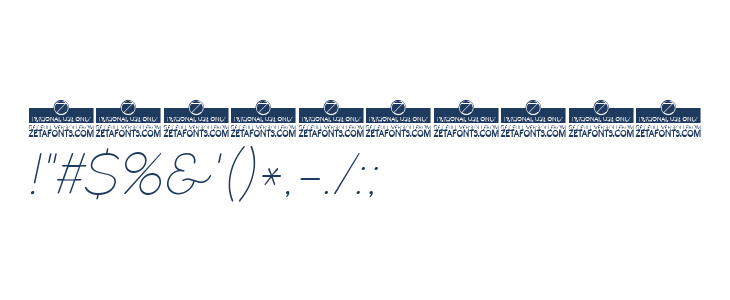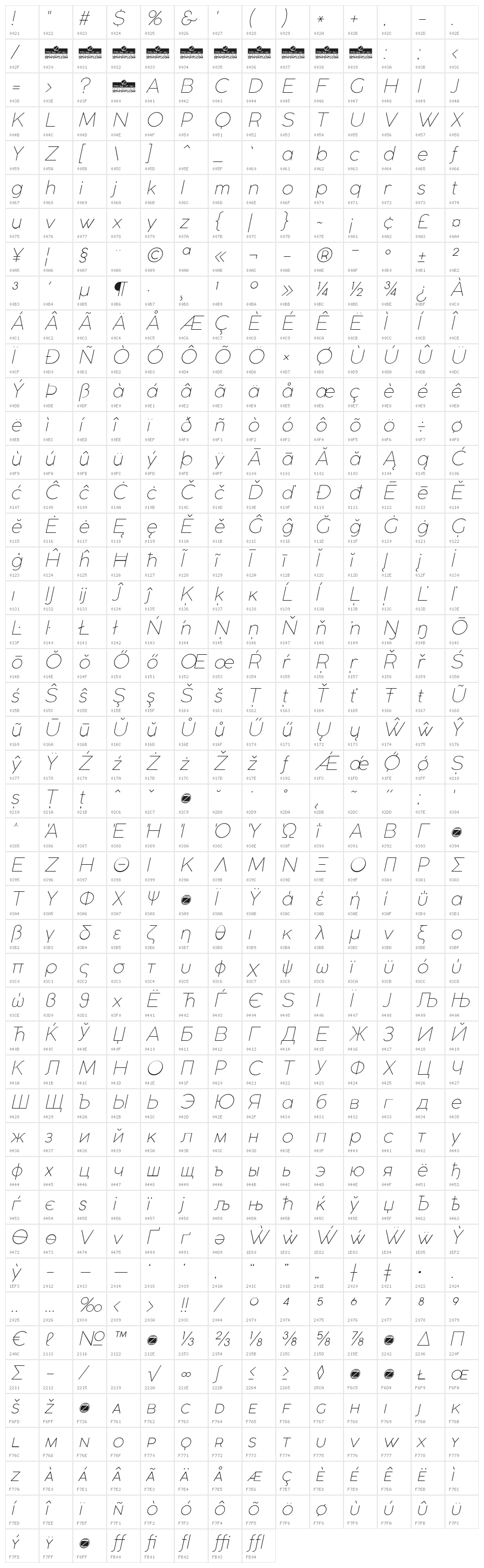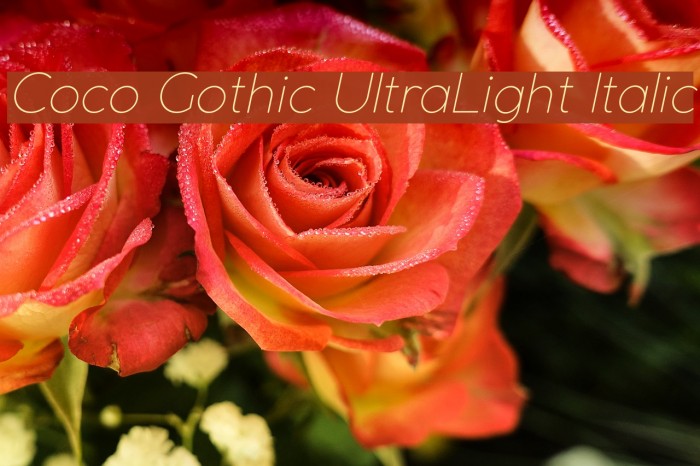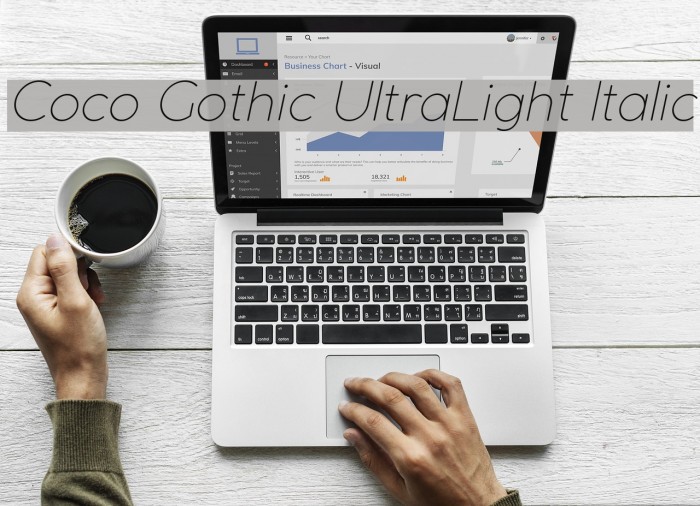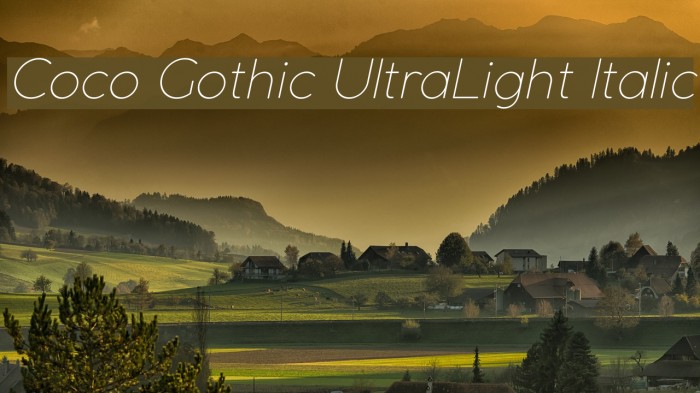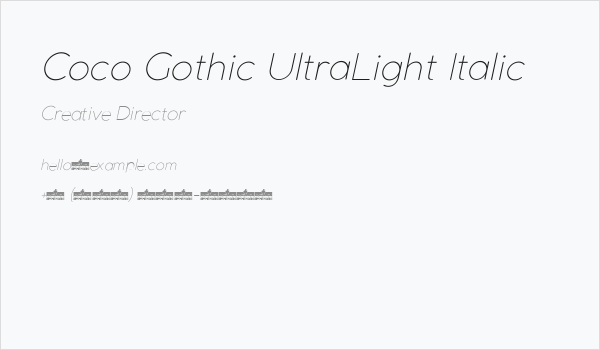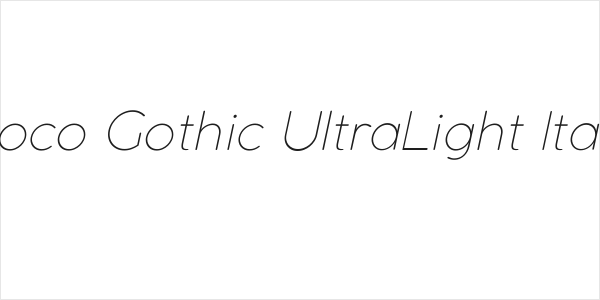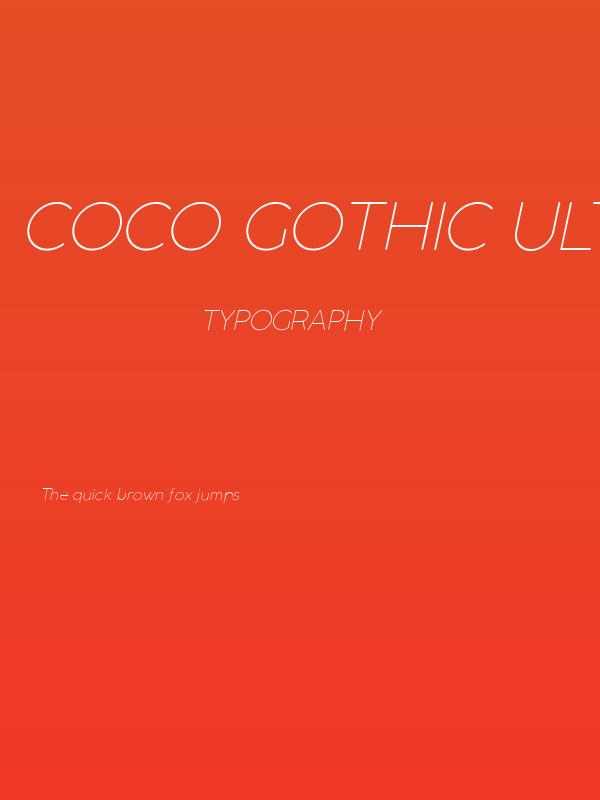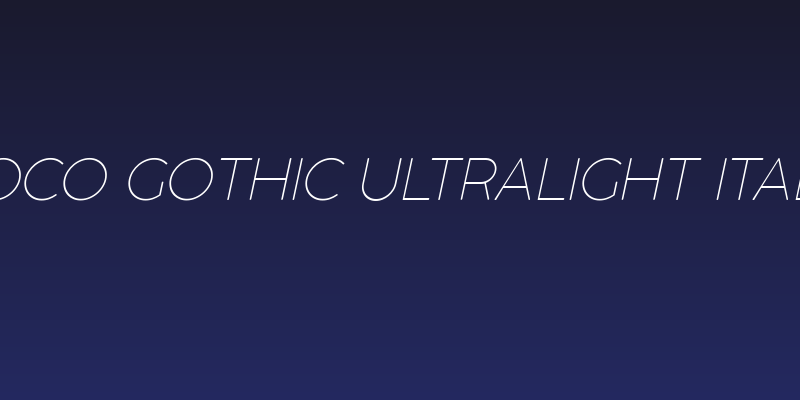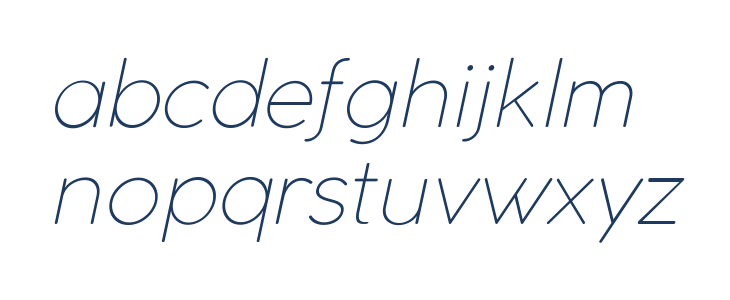
Coco Gothic UltraLight Italic Font
Coco Gothic UltraLight Italic Description
This font features a sleek and modern design with ultra-light strokes and a distinct italic slant. The characters are elegantly elongated, giving a sense of fluidity and motion. The uppercase and lowercase letters maintain a consistent style, with clean lines and minimalistic curves. The numerals and special characters are designed to complement the overall aesthetic, ensuring a cohesive look across all text elements. The font's simplicity and elegance make it suitable for a variety of design applications, from digital media to print.
| Proposed Projects | Ideal for modern branding, minimalist design projects, fashion magazines, and elegant invitations. |